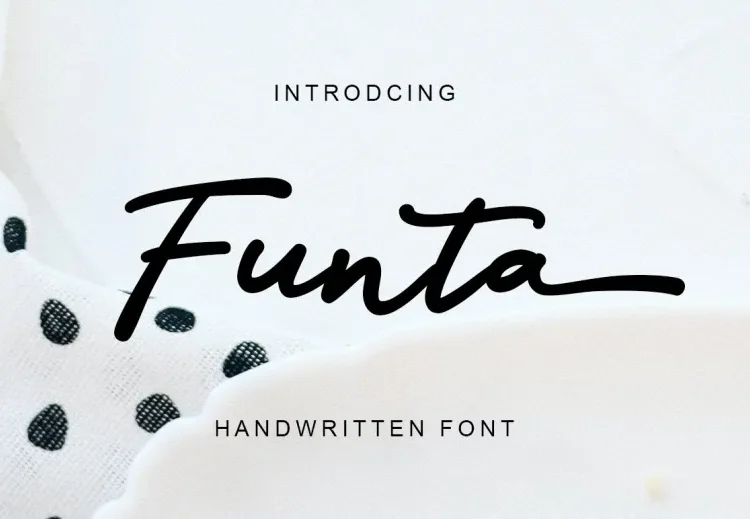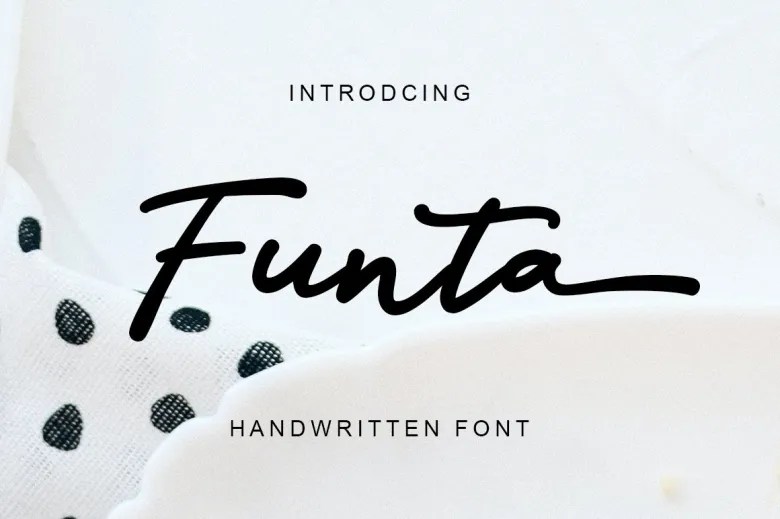
Funta Font
Funta Font is a charming handwritten script typeface designed to infuse a playful and casual touch into your text. With its cursive letterforms and distinctive tails, Funta is perfect for adding a personal, handcrafted feel to your design projects.
Key Features of Funta:
• Handwritten Style: Features flowing, cursive letterforms that mimic casual, playful handwriting.
• Versatile Application: Ideal for various design projects, including card invitations, greeting cards, headers, and posters.
• Visual Appeal: Adds a unique, personal touch to backgrounds and text, making it stand out.
Ideal Uses:
• Invitations & Greetings: Perfect for personalizing card invitations and greetings with a touch of elegance and playfulness.
• Headers & Posters: Ideal for creating eye-catching headers and posters that convey a friendly, informal tone.
• Design Projects: Useful for any project requiring a handwritten feel, enhancing visual appeal with its distinctive style.